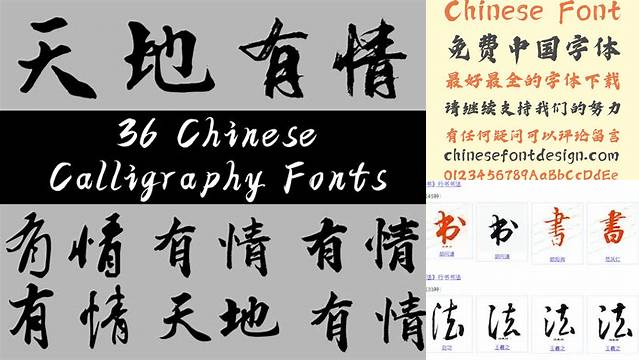
Free Chinese Calligraphy Font Generator: Create Stunning Art
Hey guys! Ever wanted to create some amazing Chinese calligraphy but don't know where to start? Or maybe you're a pro looking for a quick and easy way to generate stunning fonts for your projects? Well, you're in the right place! We're diving deep into the world of free Chinese calligraphy font generators, and trust me, it's more exciting than it sounds. Let's explore how you can create beautiful and authentic-looking calligraphy without spending a dime. Ready? Let's get started!
Exploring Online Chinese Calligraphy Font Generators
So, what exactly are online Chinese calligraphy font generators? Think of them as your digital calligraphy assistants. They allow you to type in text and instantly convert it into various calligraphy styles. It's like having a virtual brush and ink at your fingertips! But with so many options out there, how do you choose the right one? Let's break it down.
Using an online Chinese calligraphy font generator is super simple. You just type in your text, select a font style, and bam! You've got your calligraphy. These generators are perfect for adding a touch of elegance to invitations, designing eye-catching posters, or even creating unique social media content. The best part? Many of them are completely free, making it accessible for everyone to experiment with this beautiful art form. Now, let's jump into some specific examples and what makes them stand out.
Benefits of Using Online Generators
Why should you use an online Chinese calligraphy font generator? Well, there are tons of reasons! First off, it saves you time. Learning traditional calligraphy takes years of practice, but with a generator, you can create beautiful text in seconds. It's also super convenient. You don't need any special equipment – just a computer and an internet connection. Plus, it's a fantastic way to explore different styles without making a huge commitment. Whether you're a beginner or a seasoned designer, these tools can be a game-changer.
Limitations of Online Generators
Okay, let's be real. While online generators are awesome, they're not perfect. The fonts might not have the same level of nuance and authenticity as hand-drawn calligraphy. Sometimes, the character rendering can be a bit off, especially with complex characters. And, of course, you're limited to the styles that the generator offers. But hey, for free tools, they're pretty darn impressive. Just keep these limitations in mind and use them as a starting point rather than a final product, especially for professional projects.
Top Free Chinese Calligraphy Font Generators
Alright, let's get to the good stuff! We're going to check out some of the best free Chinese calligraphy font generators out there. Each one has its own unique features and styles, so you'll definitely find something that fits your needs.
Generator A: Features and Styles
So, Generator A is a fantastic option because it boasts a wide variety of calligraphy styles. We're talking everything from the classic Kaishu (regular script) to the more flowing Xingshu (semi-cursive script). It also has a super user-friendly interface, so even if you're a complete newbie, you'll be able to navigate it like a pro. One of the coolest features is the ability to customize the font size and color, giving you even more control over your design. This generator is great for creating personalized greeting cards, elegant posters, and even adding a unique touch to your digital artwork.
Generator B: Features and Styles
Next up, we have Generator B, which is all about simplicity and speed. This one is perfect if you need to generate calligraphy quickly. It doesn't have as many style options as Generator A, but the styles it does offer are top-notch. What sets this generator apart is its focus on traditional Chinese calligraphy styles. You'll find authentic-looking fonts that are perfect for creating a classic and elegant feel. Whether you're working on a formal invitation or a historical document, Generator B has got you covered.
Generator C: Features and Styles
Now, let's talk about Generator C. This generator is a bit of a hidden gem. It's not as well-known as the other two, but it's packed with unique features. One of the coolest things about Generator C is its advanced customization options. You can tweak the stroke thickness, the spacing between characters, and even the level of ink bleed. This gives you a level of control that you won't find in many other free generators. If you're looking for a tool that lets you really fine-tune your calligraphy, Generator C is definitely worth checking out.
Understanding Different Chinese Calligraphy Styles
Before we dive deeper, let's talk about the different styles of Chinese calligraphy. Knowing these styles will help you choose the right font for your project and appreciate the art form even more. There are five main scripts in Chinese calligraphy, each with its own unique characteristics and history. Let's break them down, guys!
Kaishu (Regular Script)
First up is Kaishu, also known as the regular script. This is the most standard and widely used style of Chinese calligraphy. It's characterized by its clear, precise strokes and well-defined structure. Kaishu is perfect for formal documents, textbooks, and anything that requires readability. When you use a free Chinese calligraphy font generator, you'll often find several variations of Kaishu, each with its own subtle differences. This style is considered the foundation for learning calligraphy, and its elegance and clarity make it a timeless choice for various applications.
Lishu (Clerical Script)
Moving on, we have Lishu, or the clerical script. This style is characterized by its bold, flat strokes and distinctive